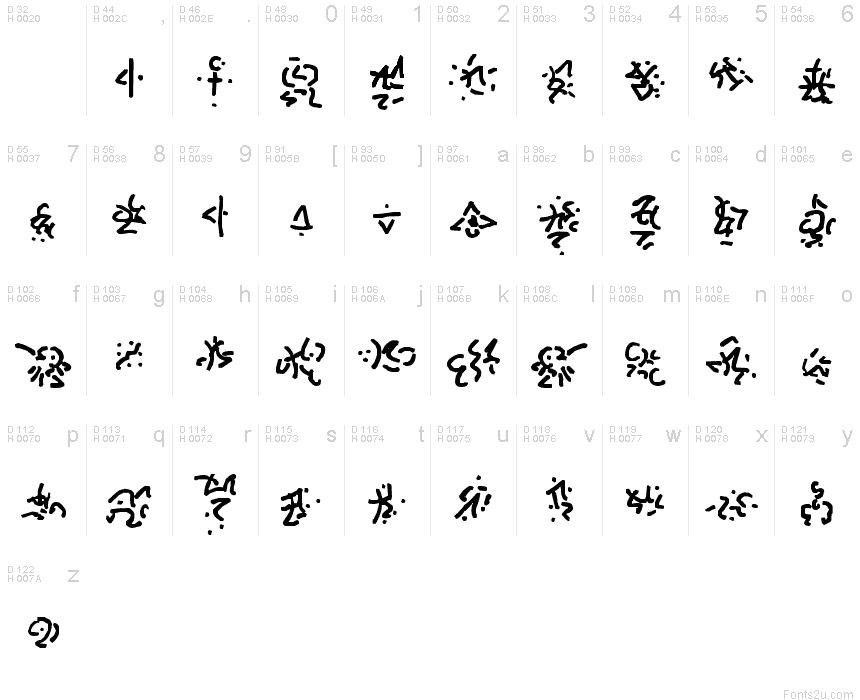
Cthulhu Runes
Cthulhu Runes font by OMEGA Font Labs is a free runic dingbats typeface that looks like it was scrawled in a hurry on damp, yellowed parchment. Each mark feels inky, scratchy, and slightly chaotic, with clustered dots and crooked strokes that suggest a ritual alphabet rather than anything you’d actually want translated. The irregular rhythm and dense texture instantly push any layout into eerie, occult territory without needing extra illustration.
Using Cthulhu Runes, you can summon atmosphere for horror book covers, RPG handouts, game maps, escape-room props, occult-themed posters, or dark ambient album art. This free font works beautifully when you let it appear in short bursts—titles, stamps, borders—supported by a clean sans-serif for readable body text. Try it oversized with grainy textures or low-opacity overlays to make the symbols feel etched, burned, or carved into your design.